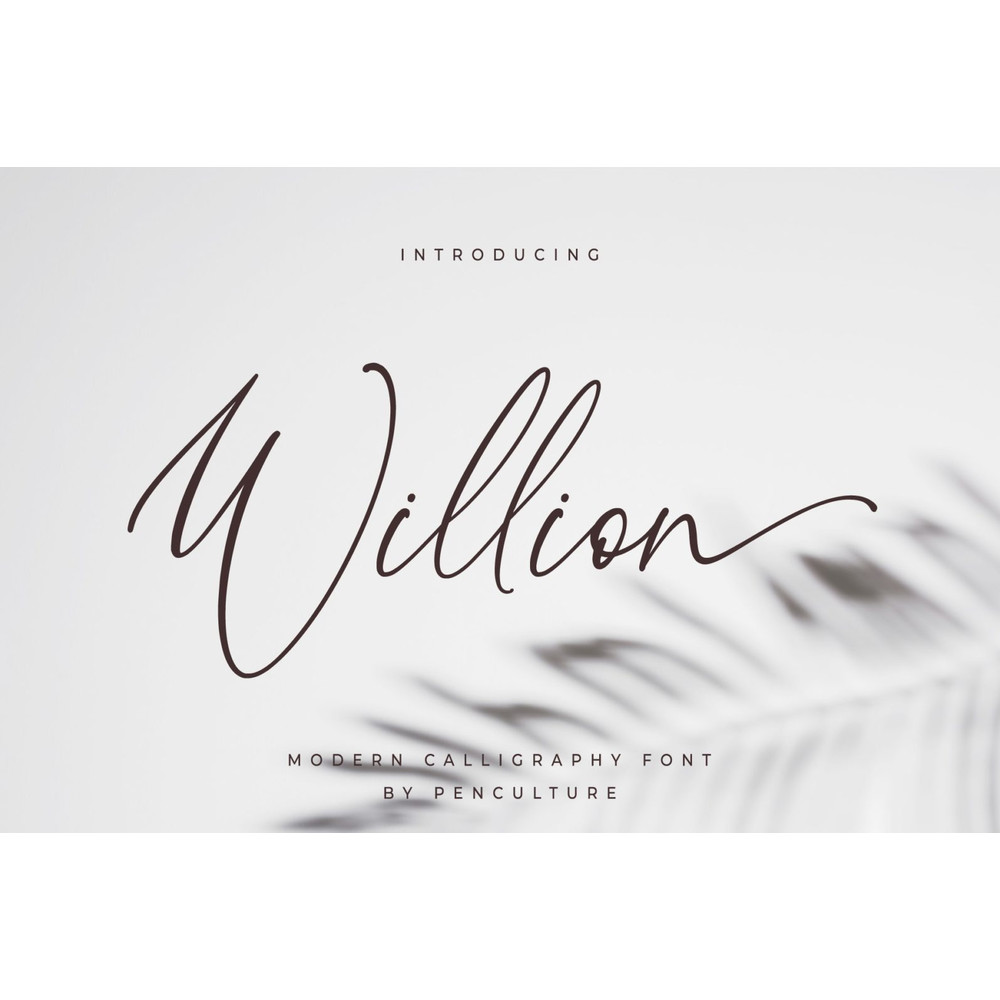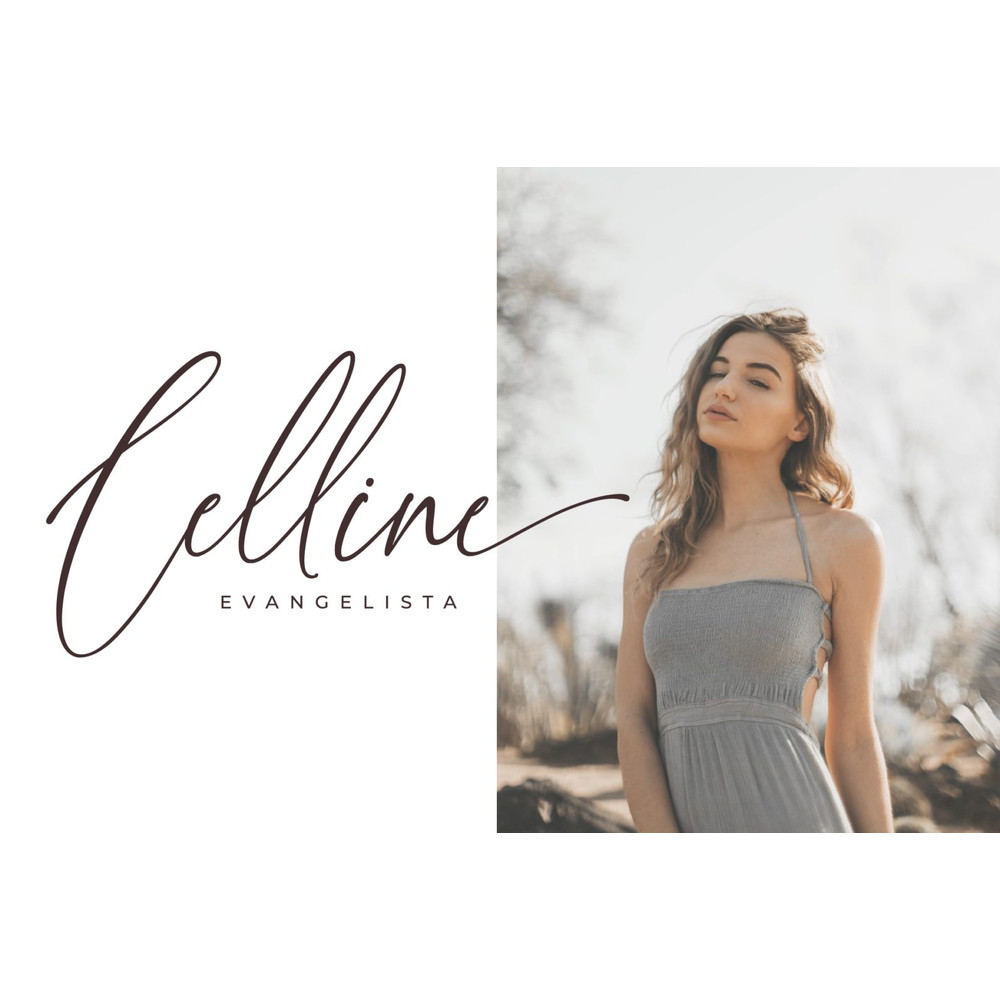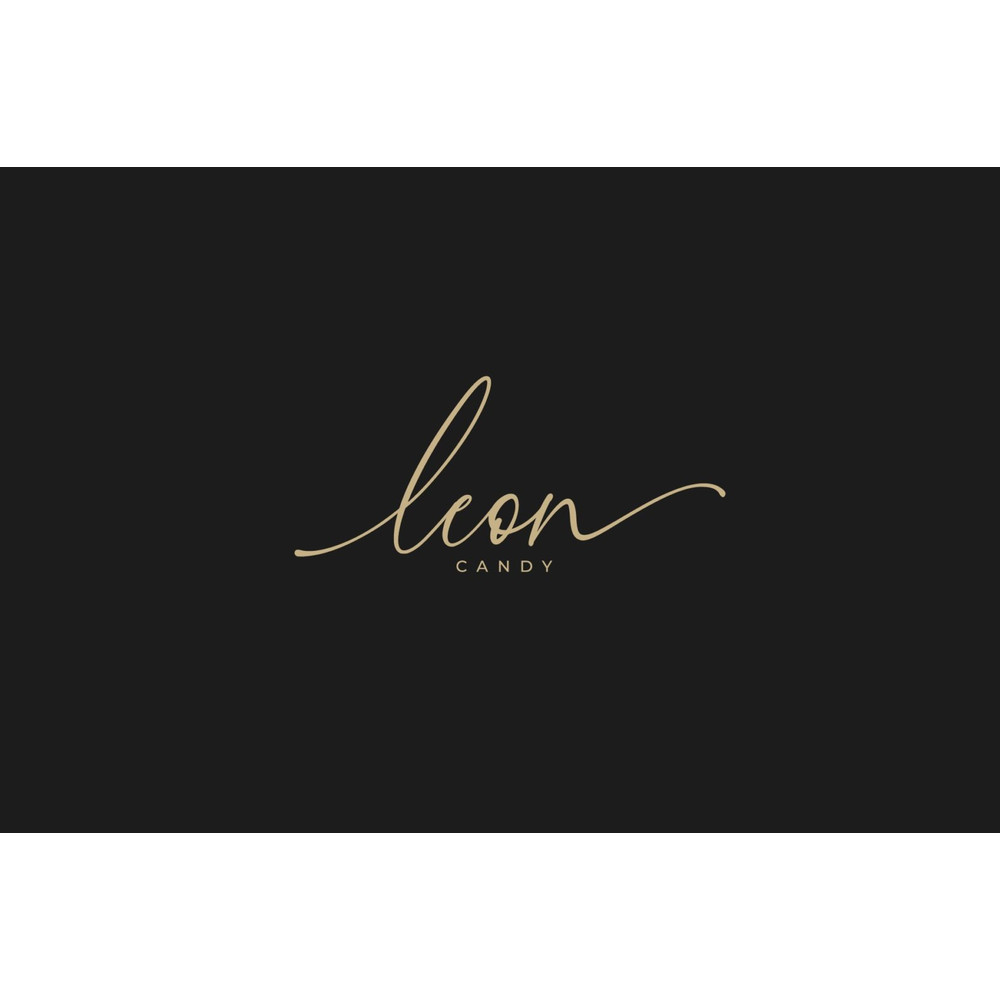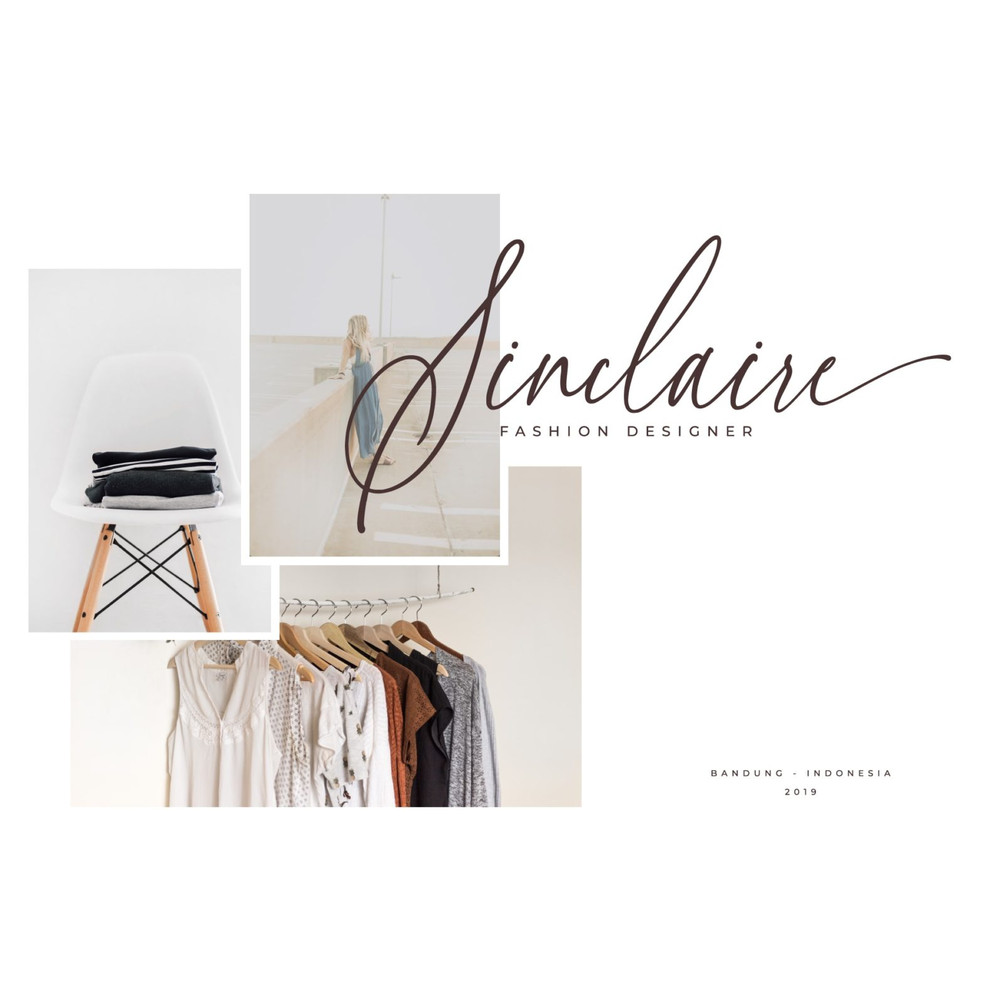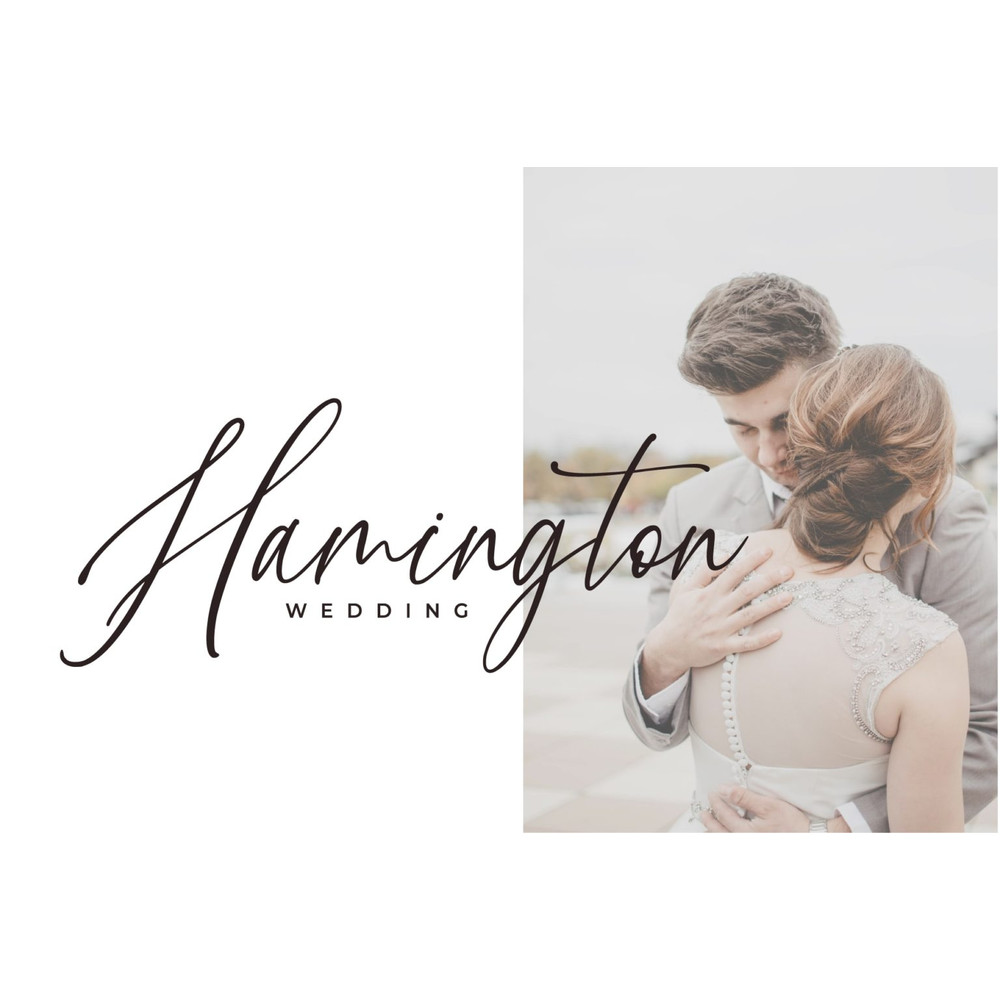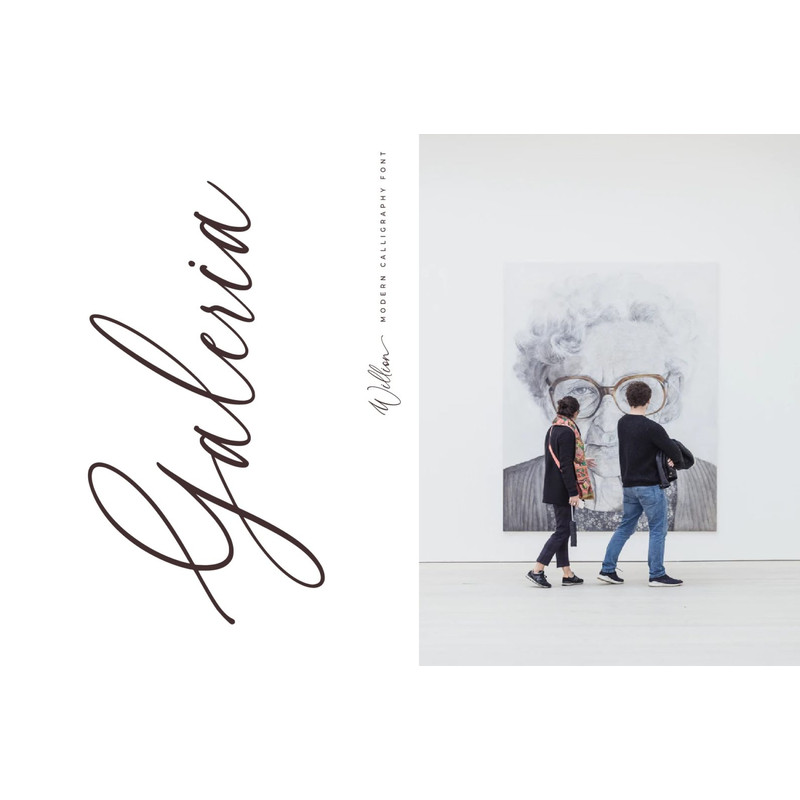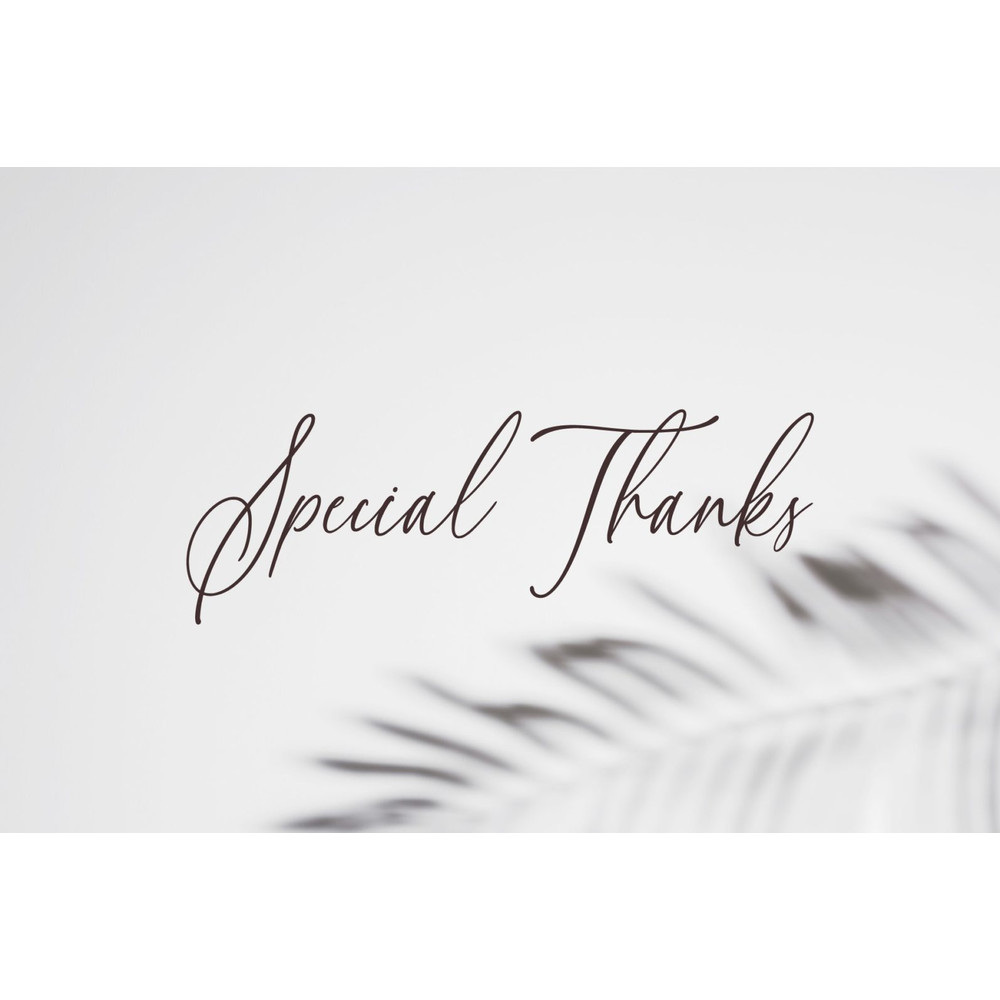
Willion is perfect for branding projects, homeware designs, product packaging – or simply as a stylish text overlay to any background image. Willion
Features :
– Uppercase and Lowercase Letter
– Number and Punctuation
– Beautiful Ligature
– Stylistic Alternate
– Multilingual Accent : ÀÁÂÃÄÅÆÇÈÉÊËÌÍÎÏÐÑÒÓÔÕÖØÙÚÛÜÝßàáâãäåæçèéêëìíîïðñòóôõöøùúûüýÿ